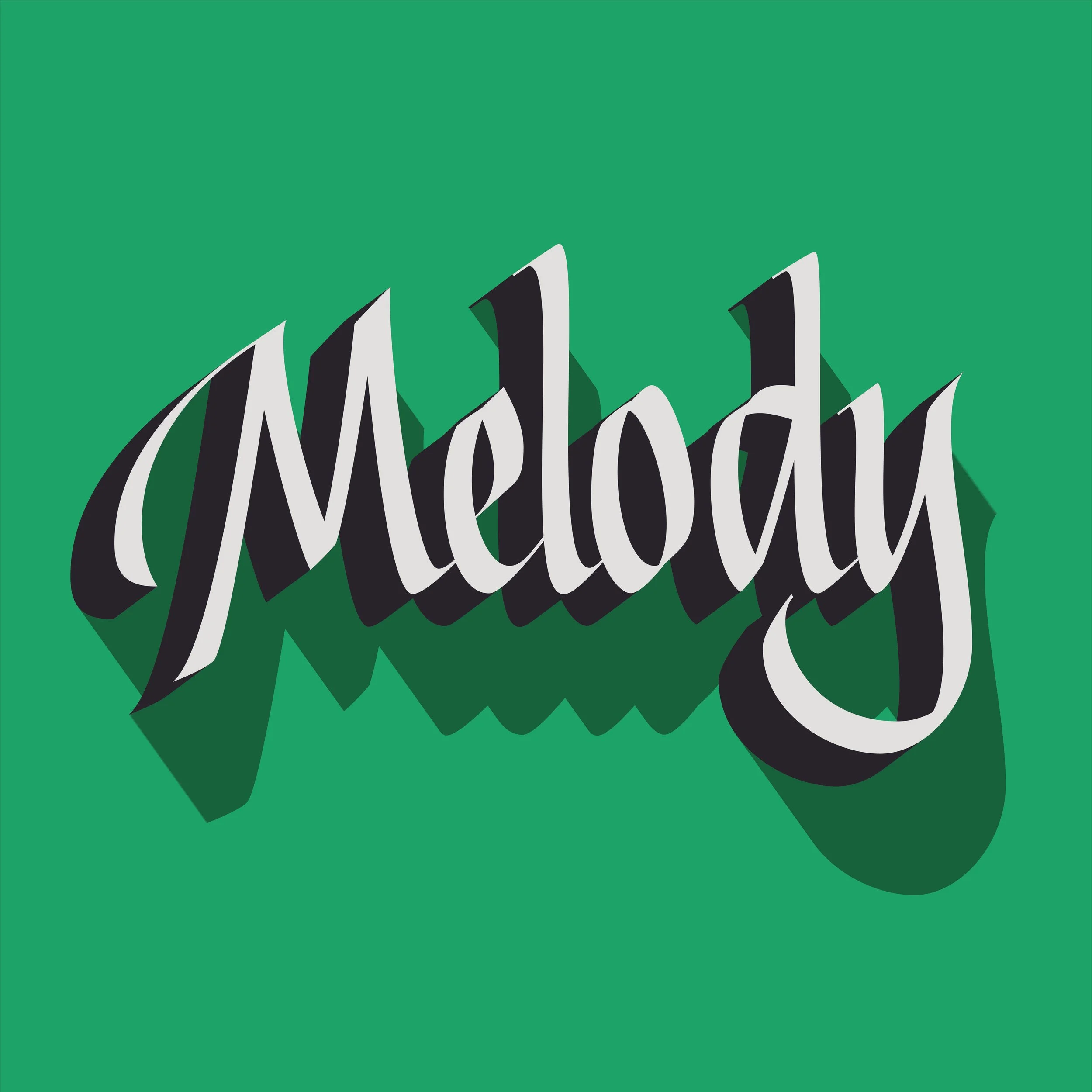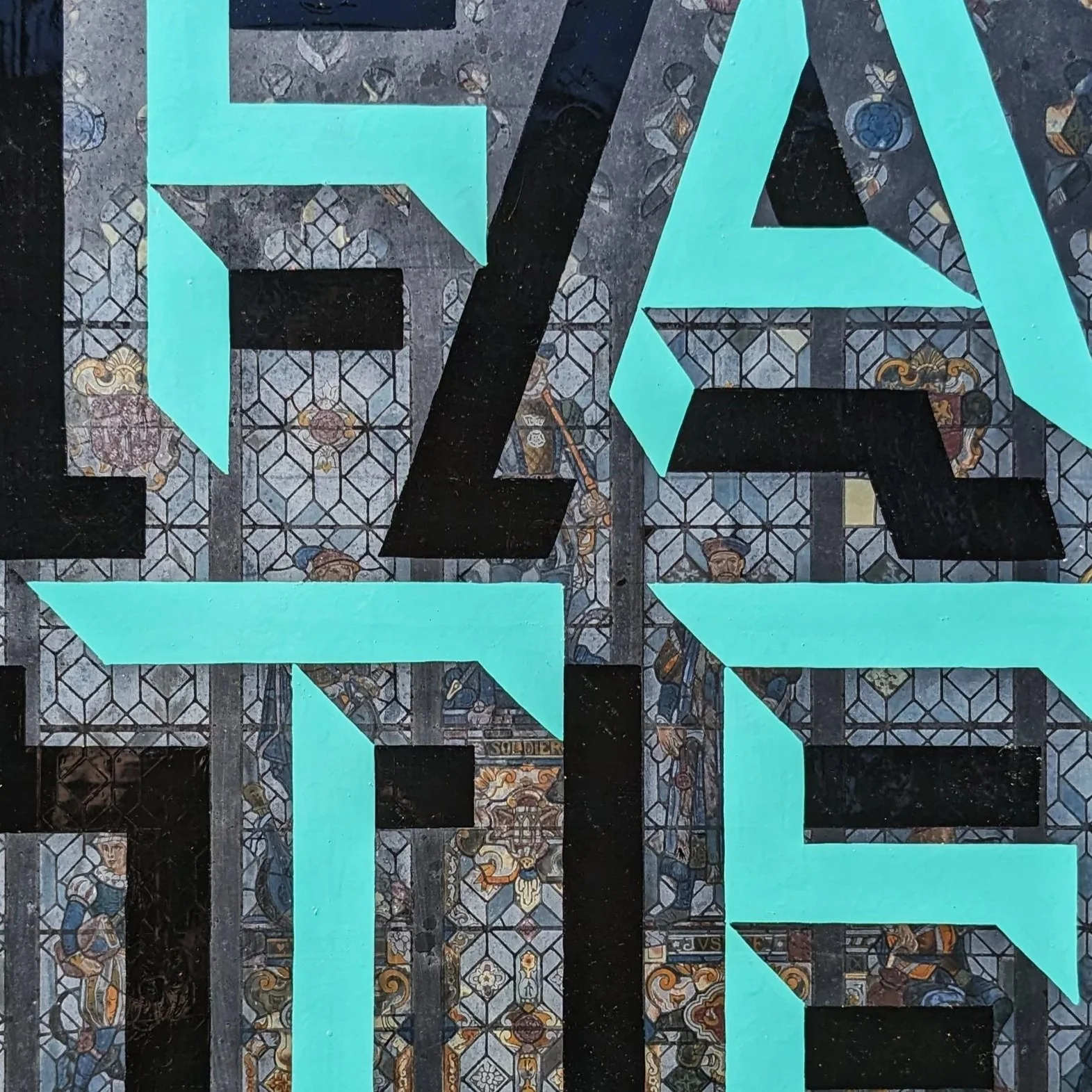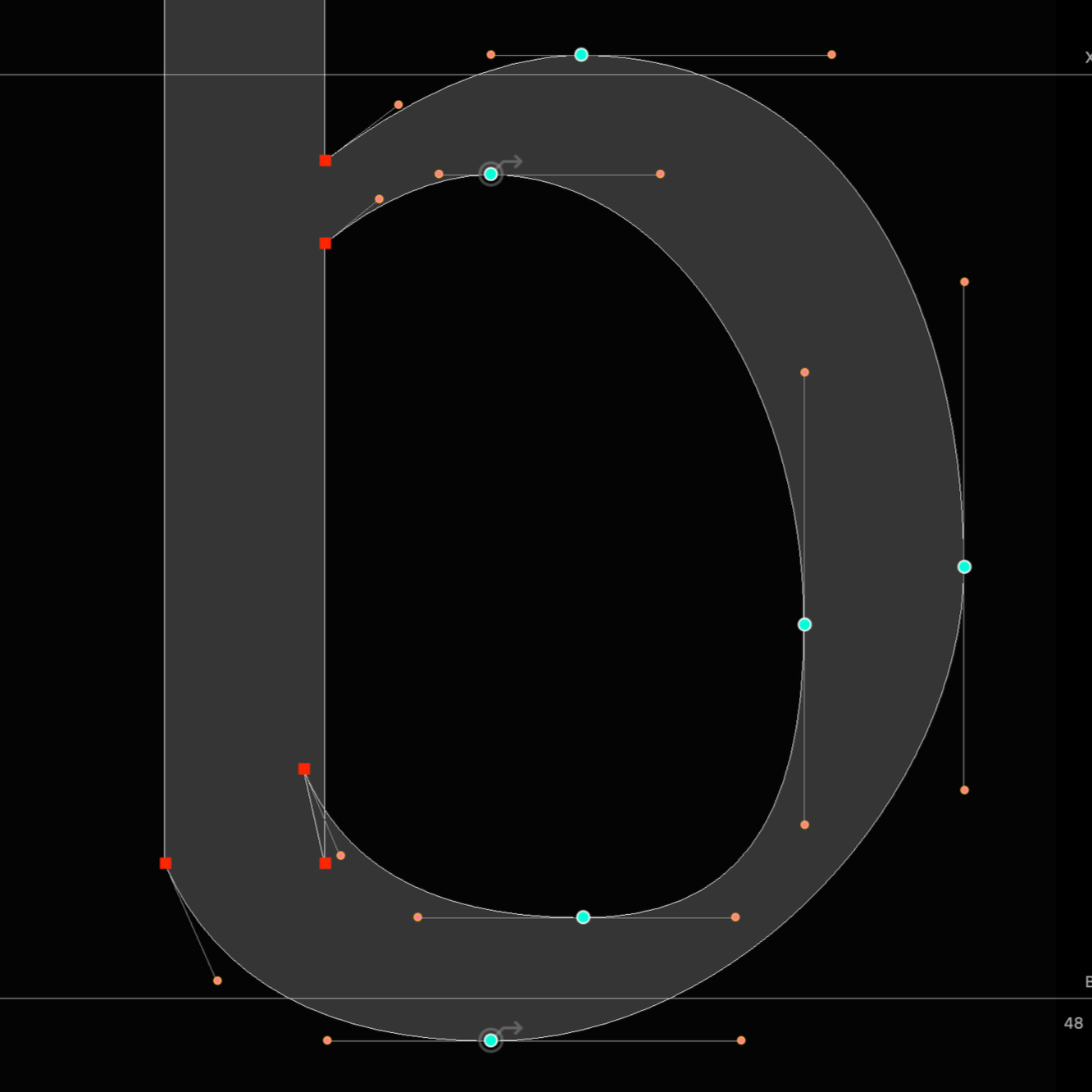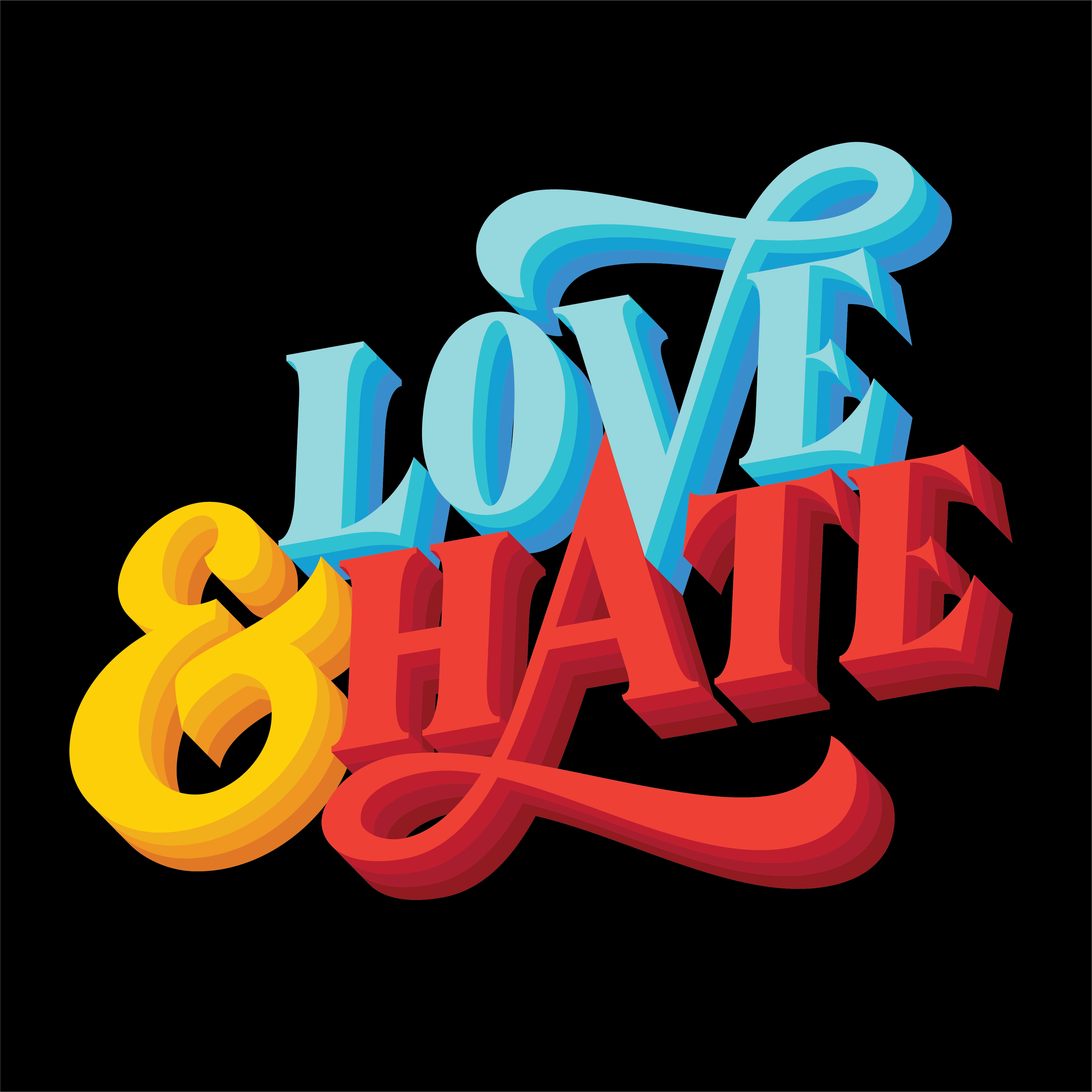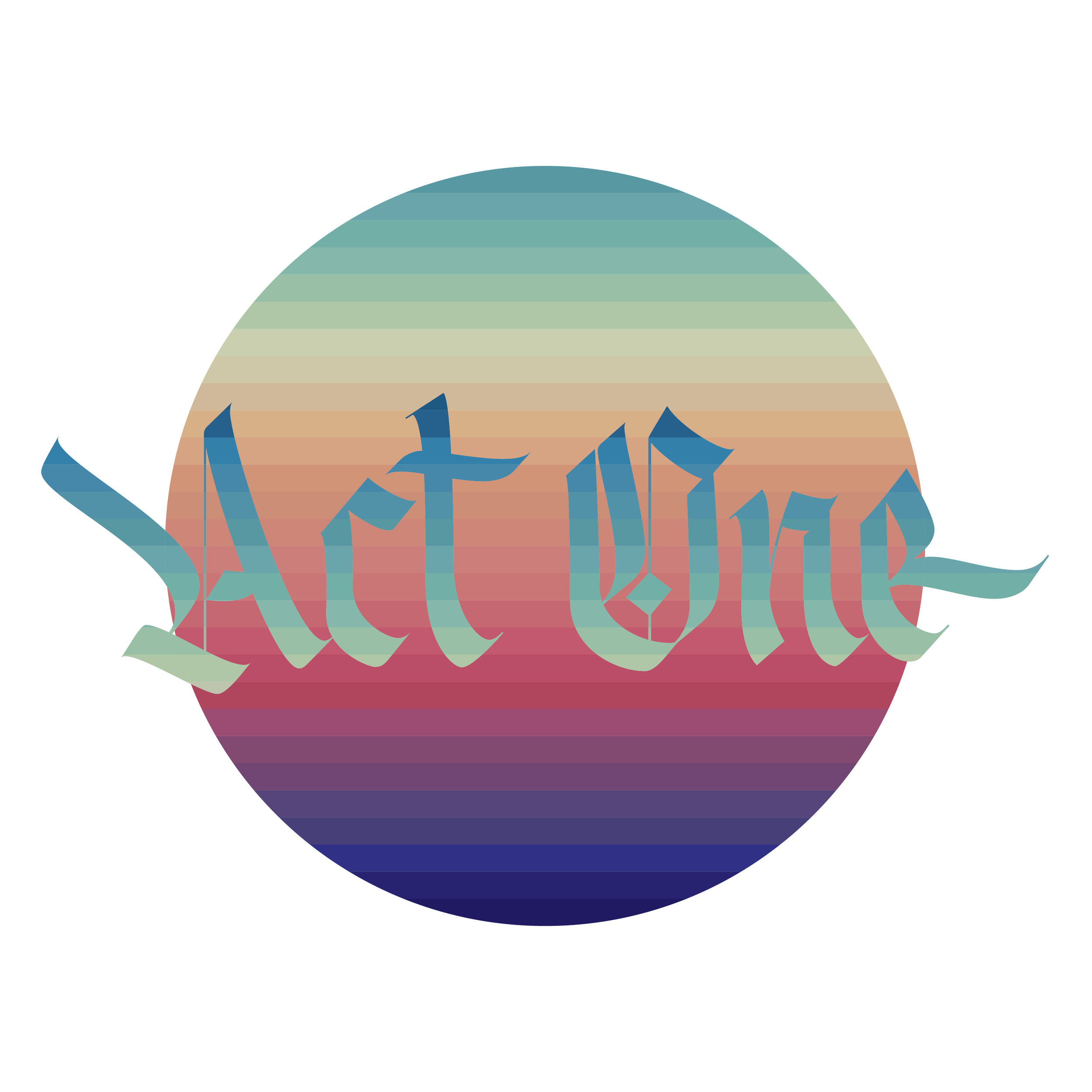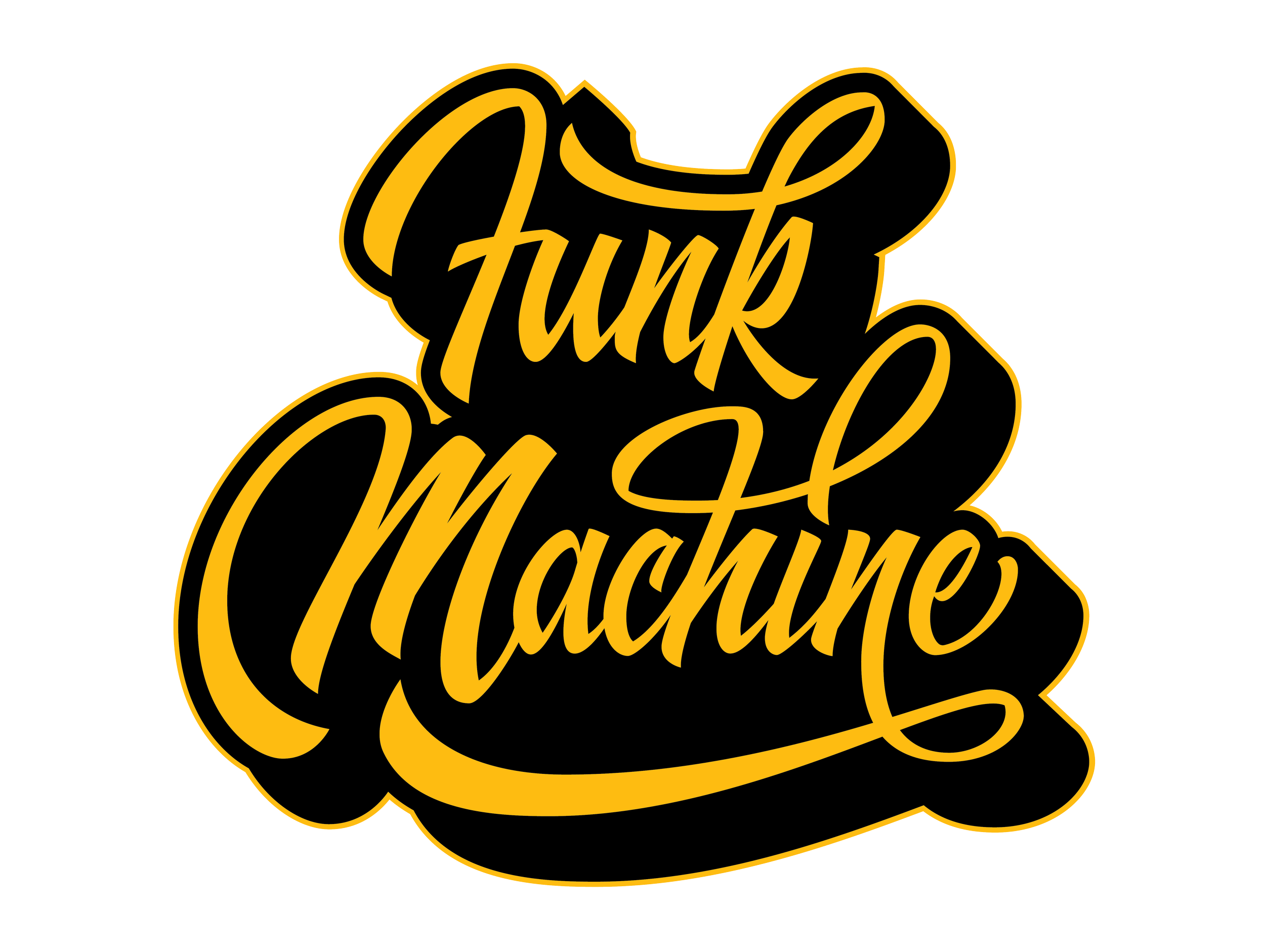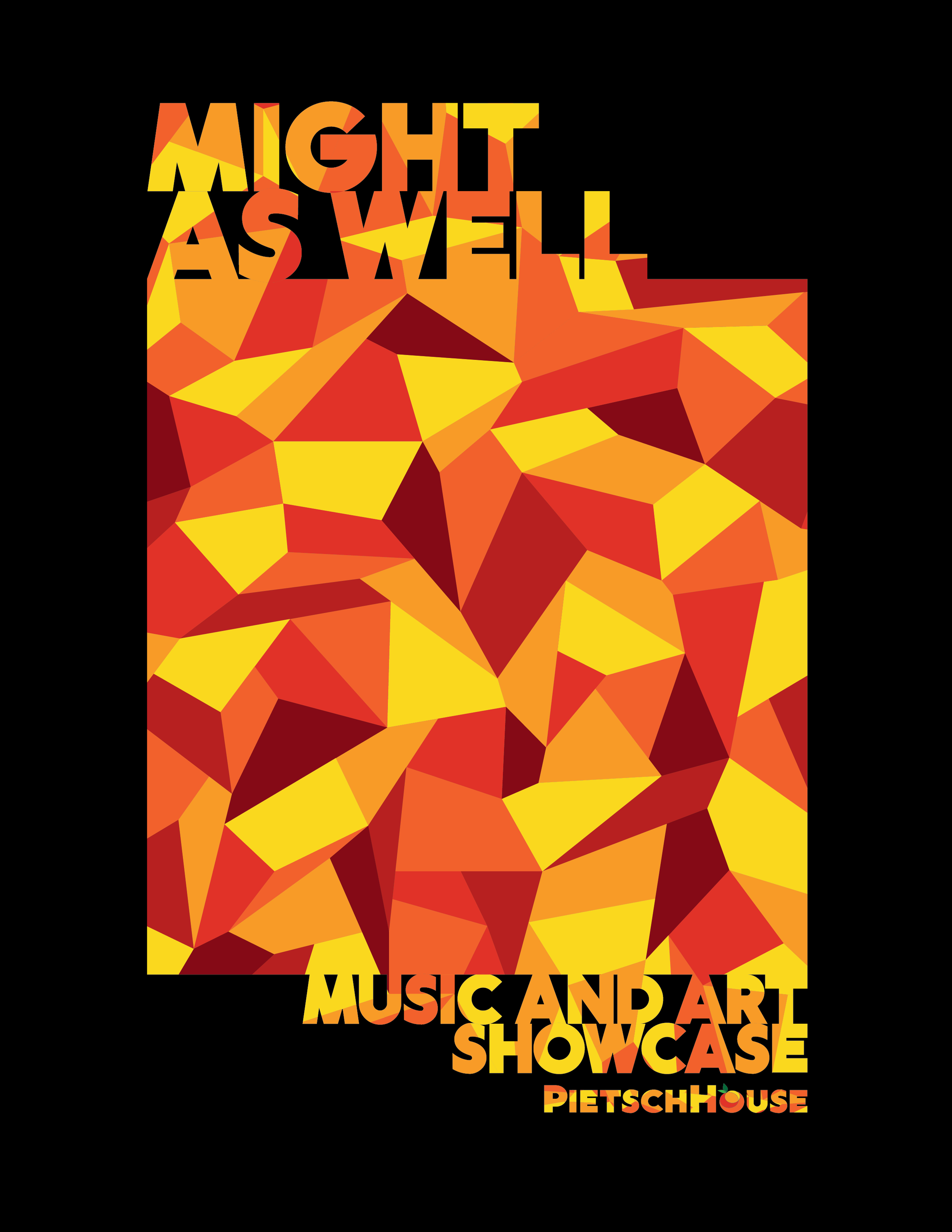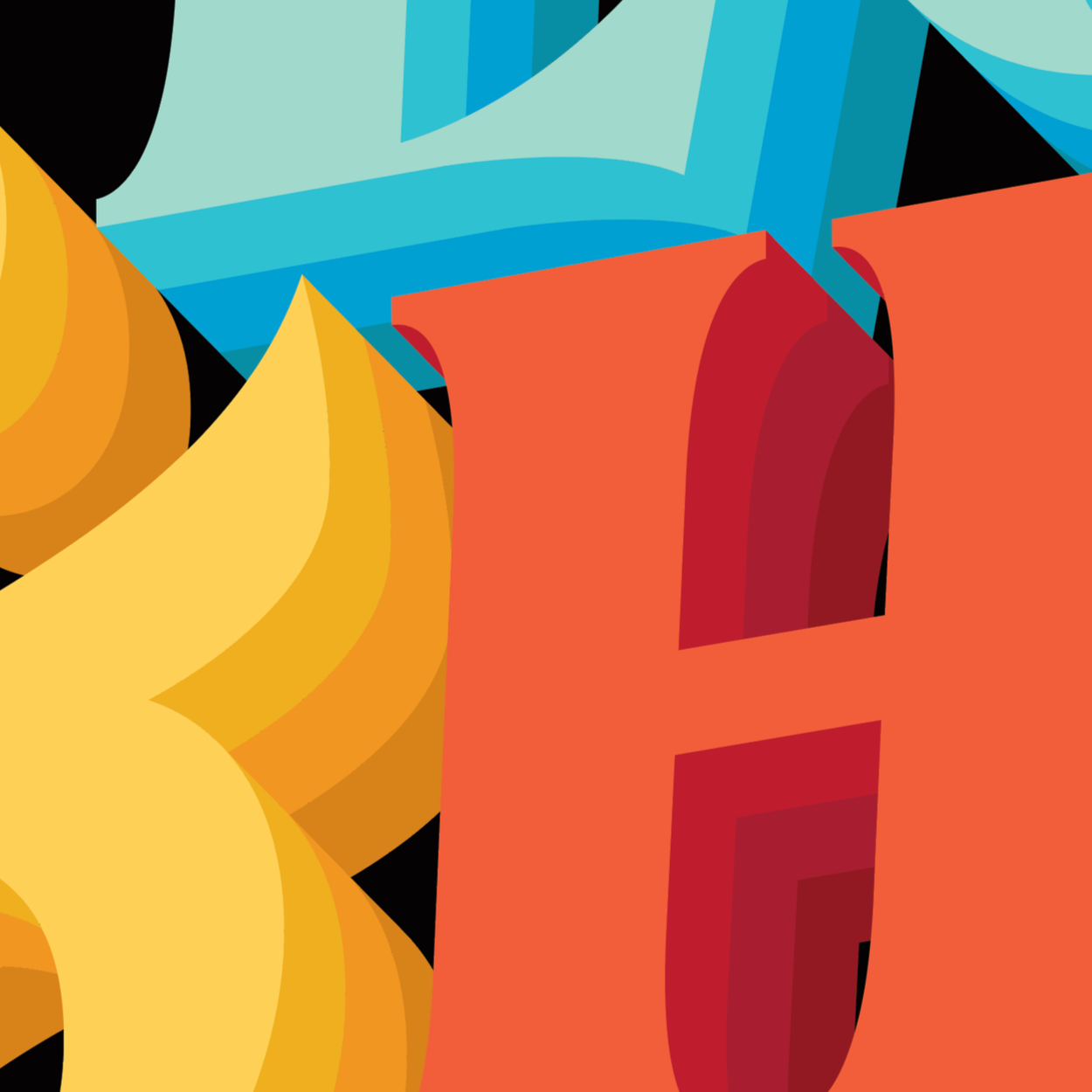
Welcome to my portfolio. Iām a lettering artist and graphic designer based in Tarrytown, New York. My work is informed by a rich background of traditional and modern lettering techniques, including calligraphy, sign painting, hand lettering, type design and graphic design.